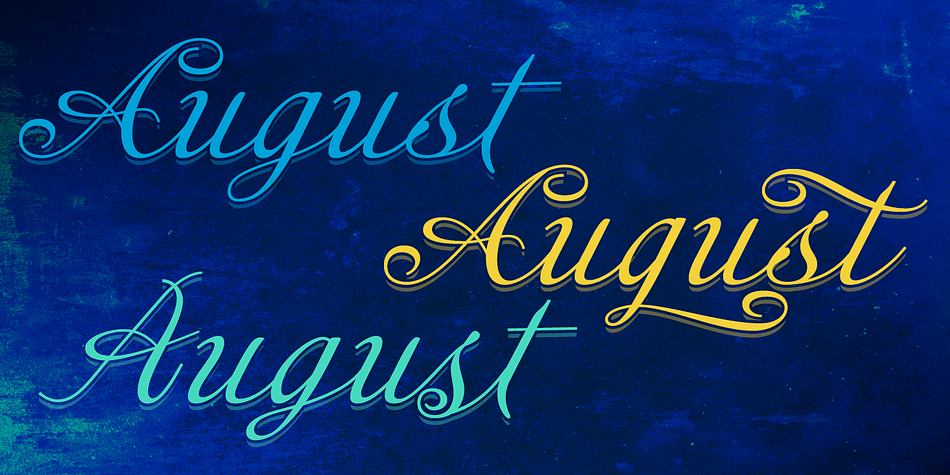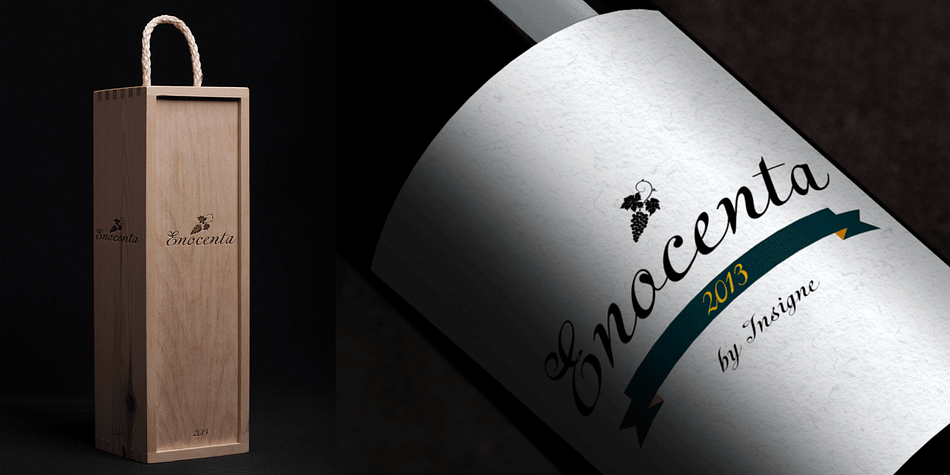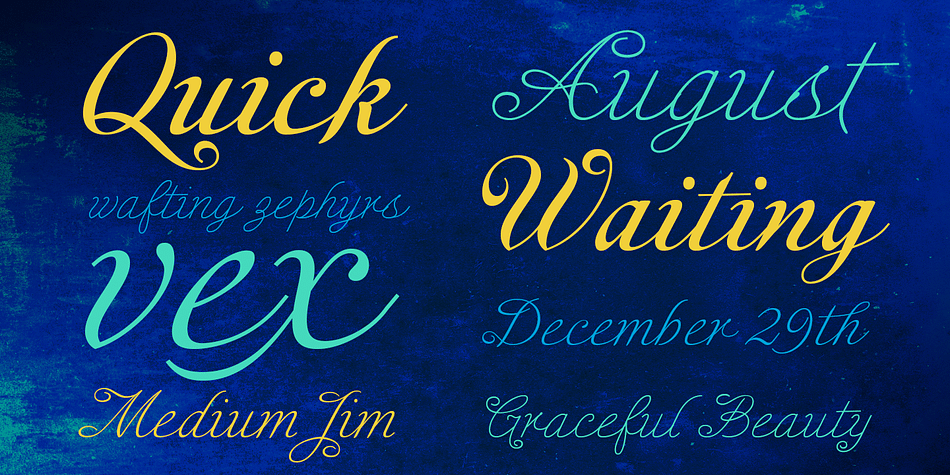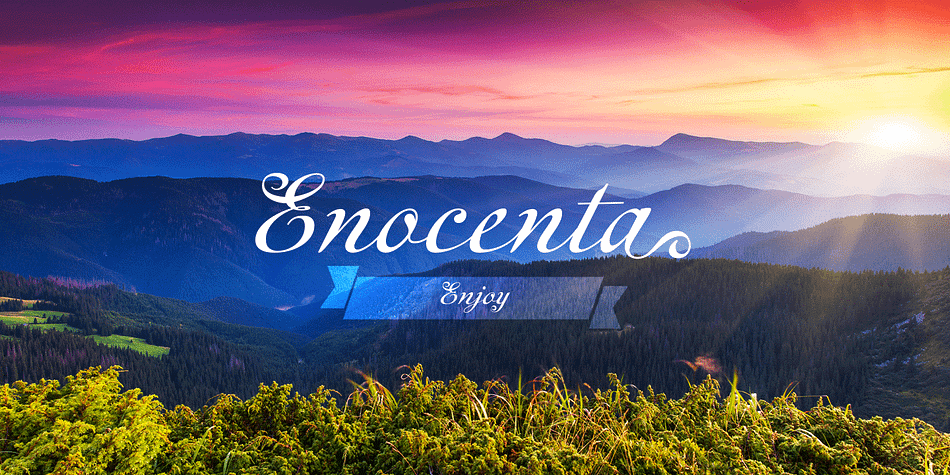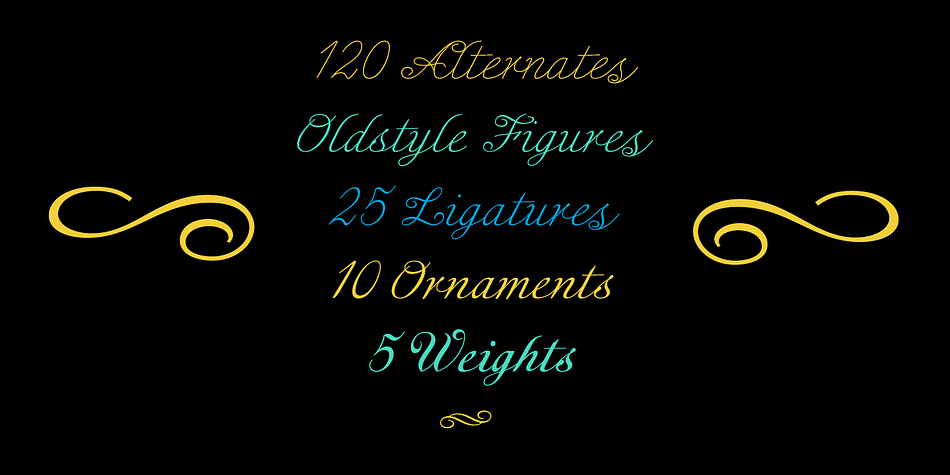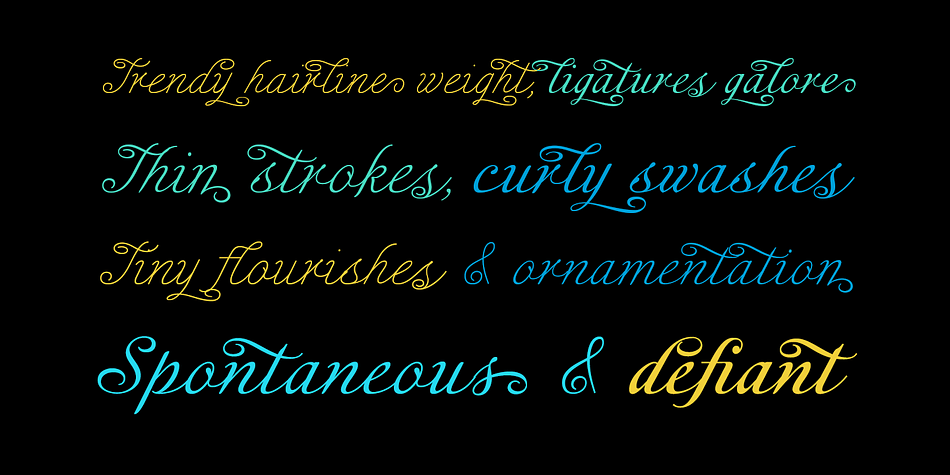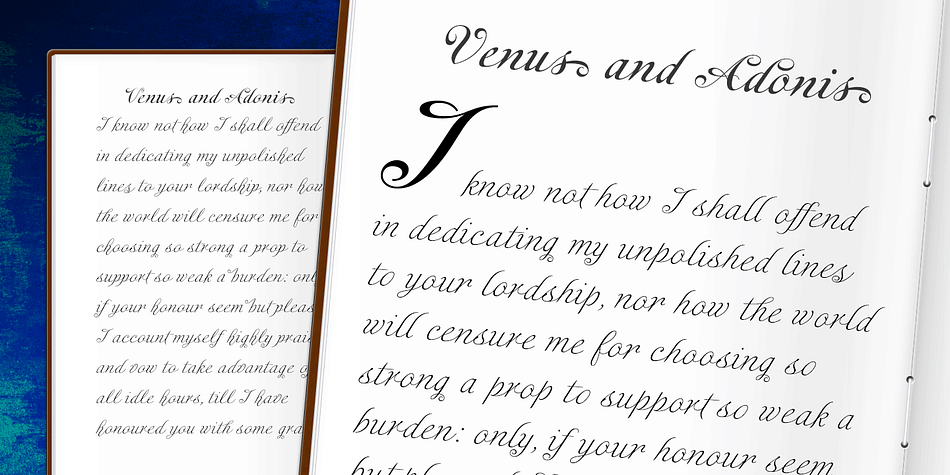
Enocenta is a script font family. This typeface has thirteen styles and was published by Insigne Design.
Enocenta is fully featured script face. Like a wild, untamed beauty in the moonlight, Enocenta’s flowing calligraphy dances across the page. This contemporary typeface is not slavishly devoted to convention, and instead it defies it repeatedly. The face has bit more character than most high contrast script faces and attracts your readers eye.
This spicy and flavorful collaboration between Jeremy Dooley and Cecilia Marina Pezoa. Enocenta is a five weight script typeface that offers a variety of options for you to design beautiful things. Enocenta is friendly and warm, and it’s hairline weight is simple and clean while its bold is strong and draws attention.
Enocenta’s contemporary appearance is right home on the web or wherever your canvas may be, whether that is packaging, magazines and invitations. It’s also a fantastic choice for branding and can be quickly converted into a distinctive logo when applying its options to customize the look and feel so the brand is unique.
Enocenta is packed with alternates, swashes, ligatures, and also other techy perks. To discover its complete feature set, please use it with software that supports OpenType options for sophisticated typography.